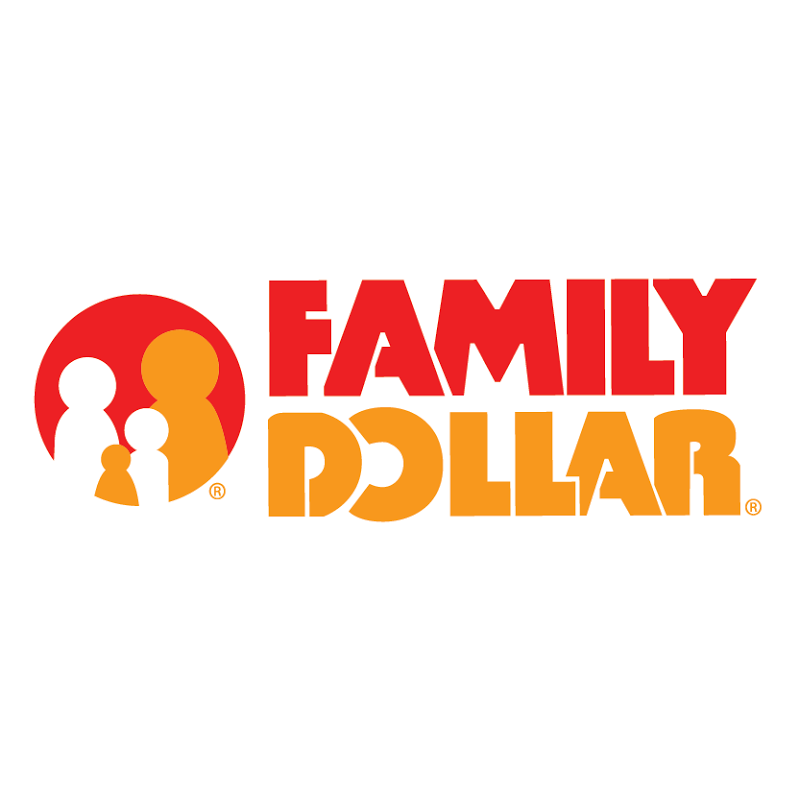
Family Dollar Logo Font
Fonts in UseFamily Dollar is a chain of variety stores founded in 1959 by Leon Levine. The company is headquartered in Matthews, North Carolina, and is currently owned by Dollar Tree, Inc.
The store chain's logo font resembles the Tabasco Bold typeface, which is a retro display font created by SoftMaker and based on John Schaedler's Tabasco typeface. The Tabasco font family includes regular and bold styles, as well as the famous bi-line variant sold under the name Tabasco Twin.